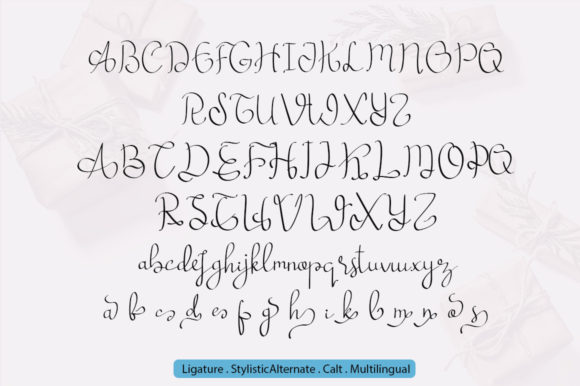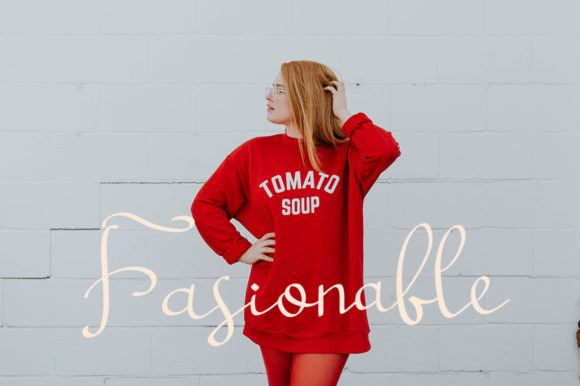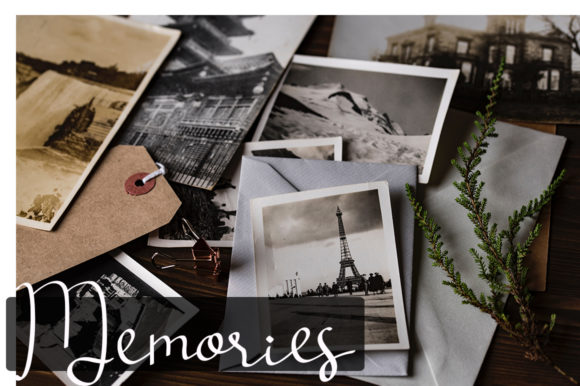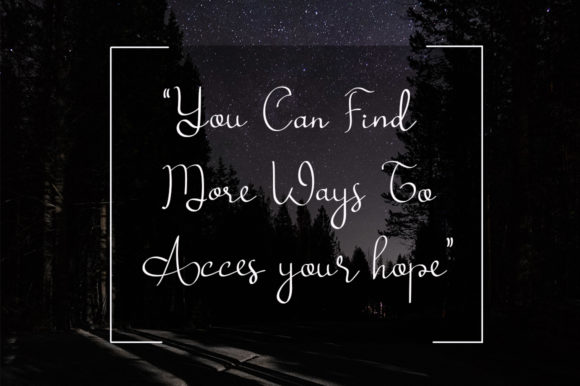
Introduction to Khatabi Font
Have you ever found yourself staring at a blank page, desperately searching for the perfect font to bring your creative project to life? We’ve all been there. The right font can make all the difference, transforming a simple design into a stunning work of art. And that’s exactly where the Khatabi Font comes in – a high-quality, free download that’s about to become your new go-to design resource.
With its light and easy feel, the Khatabi Font is perfect for designers looking to add a touch of elegance to their projects. Whether you’re working on a branding campaign or creating a social media graphic, this font is sure to make your design stand out. And with its transparent background, you can easily customize it to fit your project’s unique needs.
Key Features of Khatabi Font
- High-quality design: Khatabi Font is a meticulously crafted design resource that offers a unique aesthetic for creative projects.
- Transparent background: The font’s transparent background allows for seamless integration with various design elements and backgrounds.
- Multi-language support: Khatabi Font supports various languages, making it a versatile design resource for global projects.
- Size and resolution: The font is available in a range of sizes, from 12pt to 72pt, and offers high-resolution support up to 300 DPI.
- Unique characteristics: The font’s unique combination of traditional and modern elements makes it an excellent choice for designers looking to add a touch of elegance and sophistication to their creative projects.
Honest Review: Khatabi Font
I recently came across the Khatabi Font, a free download that caught my eye. As a designer, I appreciate a good high-quality font that can elevate a creative project. In this review, I’ll share my thoughts on what works well and what doesn’t.
- ✨ Unique design: The Khatabi Font has a distinctive style that sets it apart from other fonts. Its elegant curves and geometric shapes make it perfect for modern designs.
- ✨ Transparent background: The font’s transparent background allows for seamless integration with any design element, giving it a clean and professional look.
- ⚠️ Limited character set: The Khatabi Font has a limited character set, which may not be suitable for projects that require a wide range of characters.
- ⚠️ Not ideal for body text: While the font is great for headlines and titles, it’s not the best choice for body text due to its unique design, which can be difficult to read in large quantities.
Overall, the Khatabi Font is a great design resource that can add a touch of elegance to a creative project. While it has its limitations, its unique design and transparent background make it a valuable addition to any designer’s toolkit.
Common Use Cases for Khatabi Font
The Khatabi Font is a versatile design resource that can be used in a variety of creative projects, including:
1. Social media graphics
2. Brochures and flyers
3. Business cards and letterheads
4. Website design and development